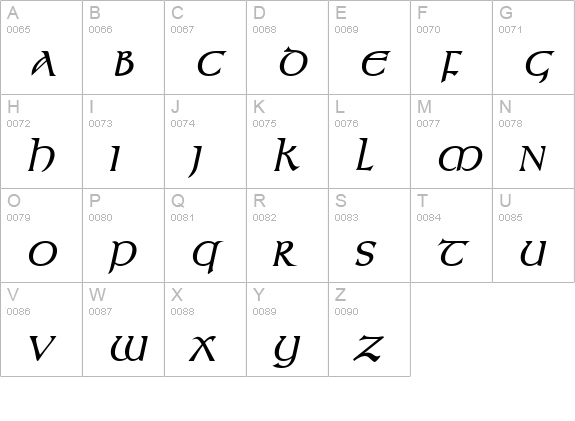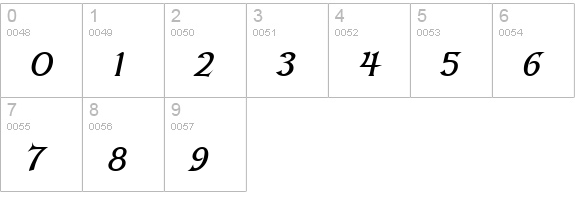
Introducing Kelt BoldItalic, a stunningly bold and stylish font that exudes confidence and elegance. With its unique blend of strong lines and curves, this font is perfect for making a statement in any design project. Whether you're creating eye-catching headlines, sleek logos, or sophisticated branding materials, Kelt BoldItalic is sure to leave a lasting impression. This font showcases a harmonious balance between boldness and grace, with each letter meticulously crafted to ensure a seamless and captivating visual experience. The italicized variation adds a touch of distinction, making it ideal for adding emphasis or creating a sense of movement in your designs. But what truly sets Kelt BoldItalic apart is its accessibility. We believe that great design should be available to everyone, which is why we are thrilled to offer this font for free. That's right, Kelt BoldItalic can be freely downloaded from FontsMarket.com, allowing you to effortlessly add a touch of sophistication to your projects without breaking the bank. So whether you're a seasoned designer or just starting out, Kelt BoldItalic is the perfect addition to your font library. Its versatility, modern allure, and availability make it an excellent choice for a wide range of design applications. Elevate your creations with Kelt BoldItalic and let your imagination soar.